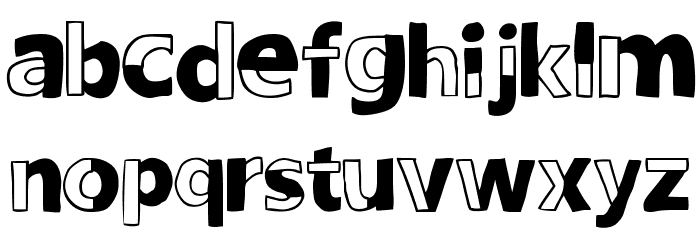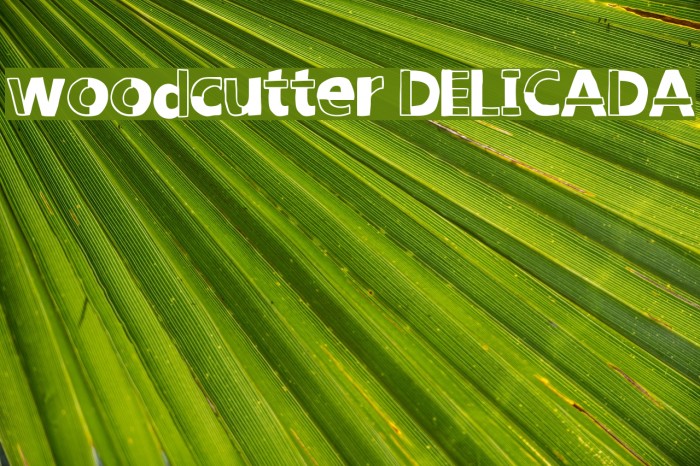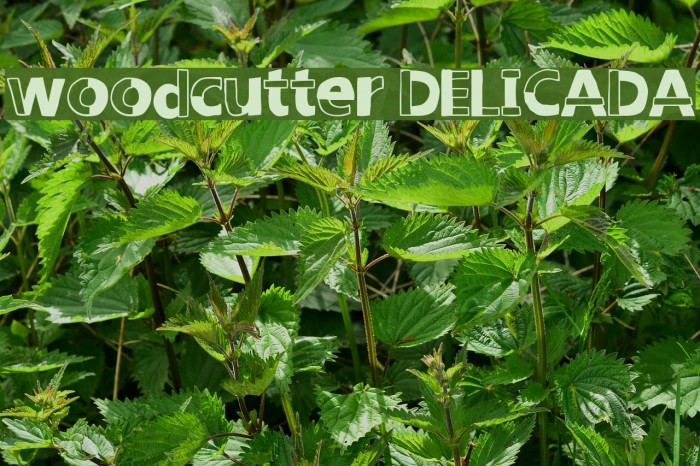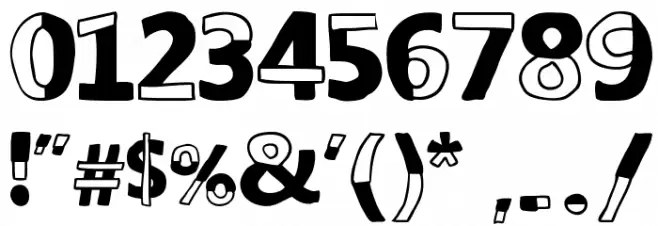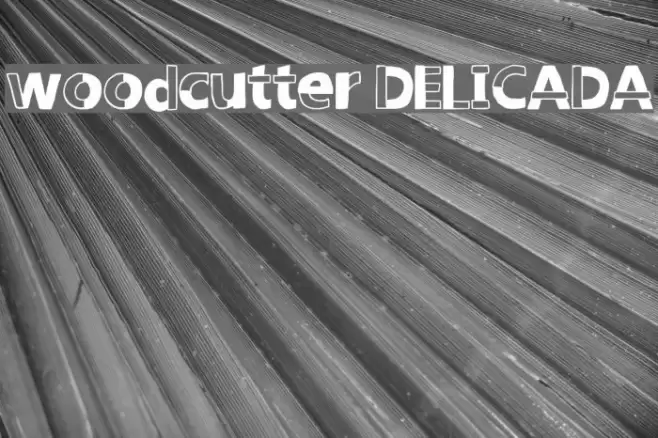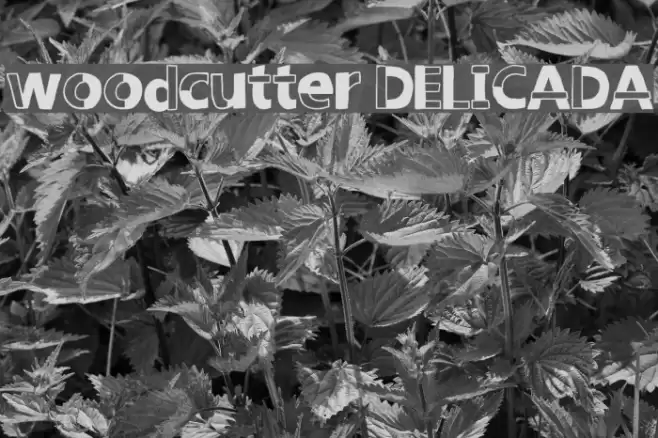
woodcutter DELICADA Font
This font features a playful and bold design with a mix of solid and outlined characters, creating a dynamic and eye-catching effect. The uppercase and lowercase letters maintain a consistent style, with rounded edges and a slightly irregular form that adds to its whimsical charm. The numbers and special characters follow the same aesthetic, ensuring a cohesive look across all elements. The font's unique style makes it ideal for projects that require a fun and engaging visual impact.
A playful, bold font with a mix of solid and outlined characters.
- Proposed Projects: Perfect for children's books, playful branding, posters, and creative invitations.
- Overall Style: Playful, Whimsical